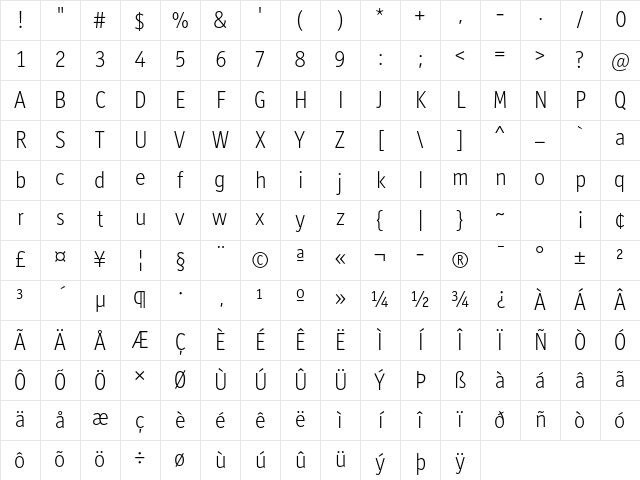
Complete Officina Display ITC Std Light glyph index. Displaying only characters natively supported by Officina Display ITC Std Light font.
Officina Display ITC Std is built around its visual character rather than neutral utility - its distinctive forms are designed to make an impression at display sizes. Its slender proportions lend an understated elegance to any composition.
Font Pairing: Pair with a clean neutral sans-serif for body copy to let Officina Display ITC Std's character lead without overwhelming the composition.
Pro Tip: Use Officina Display ITC Std exclusively at display sizes - it was designed to be seen, not read at length. Let a neutral companion handle body copy.